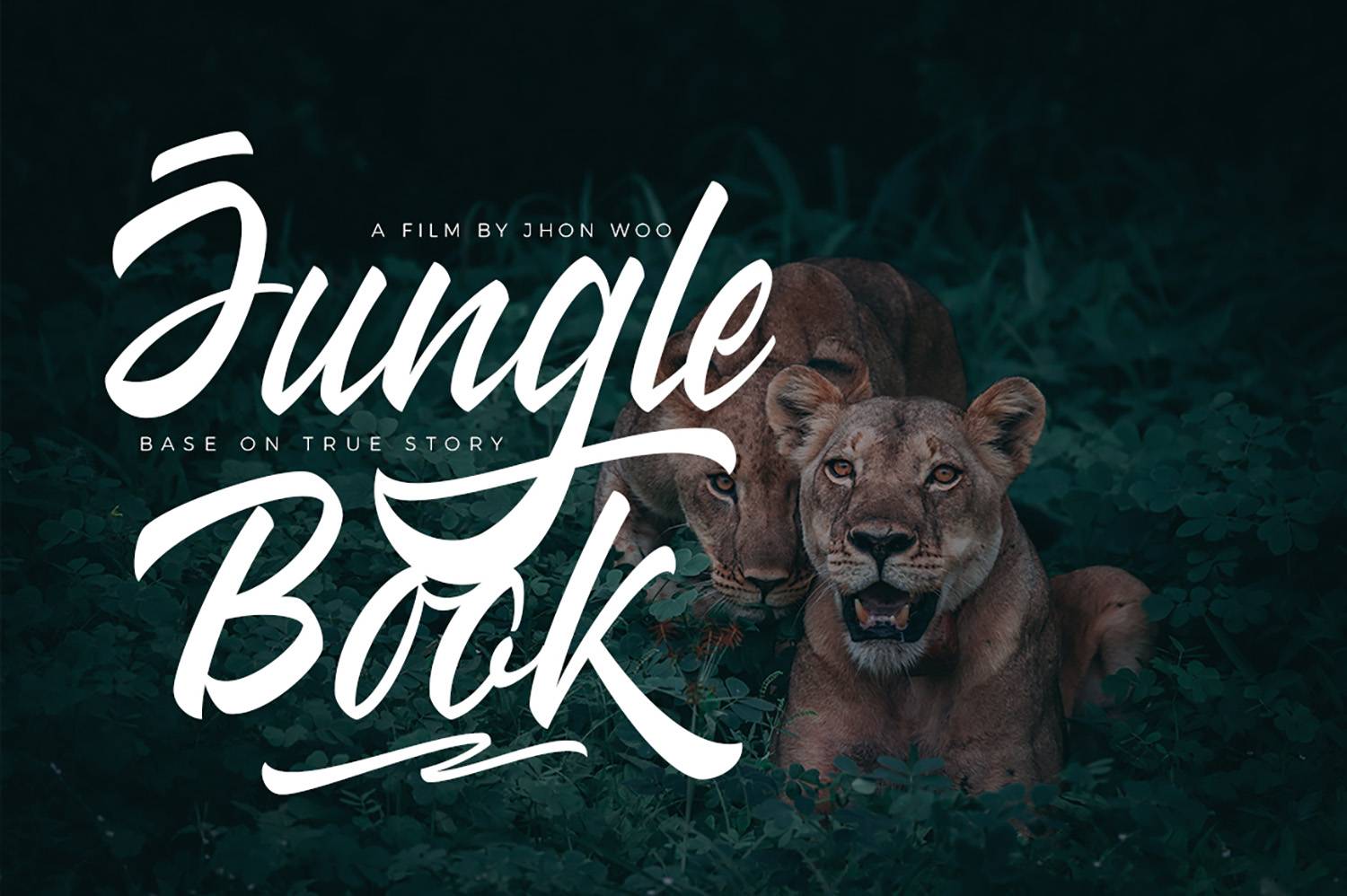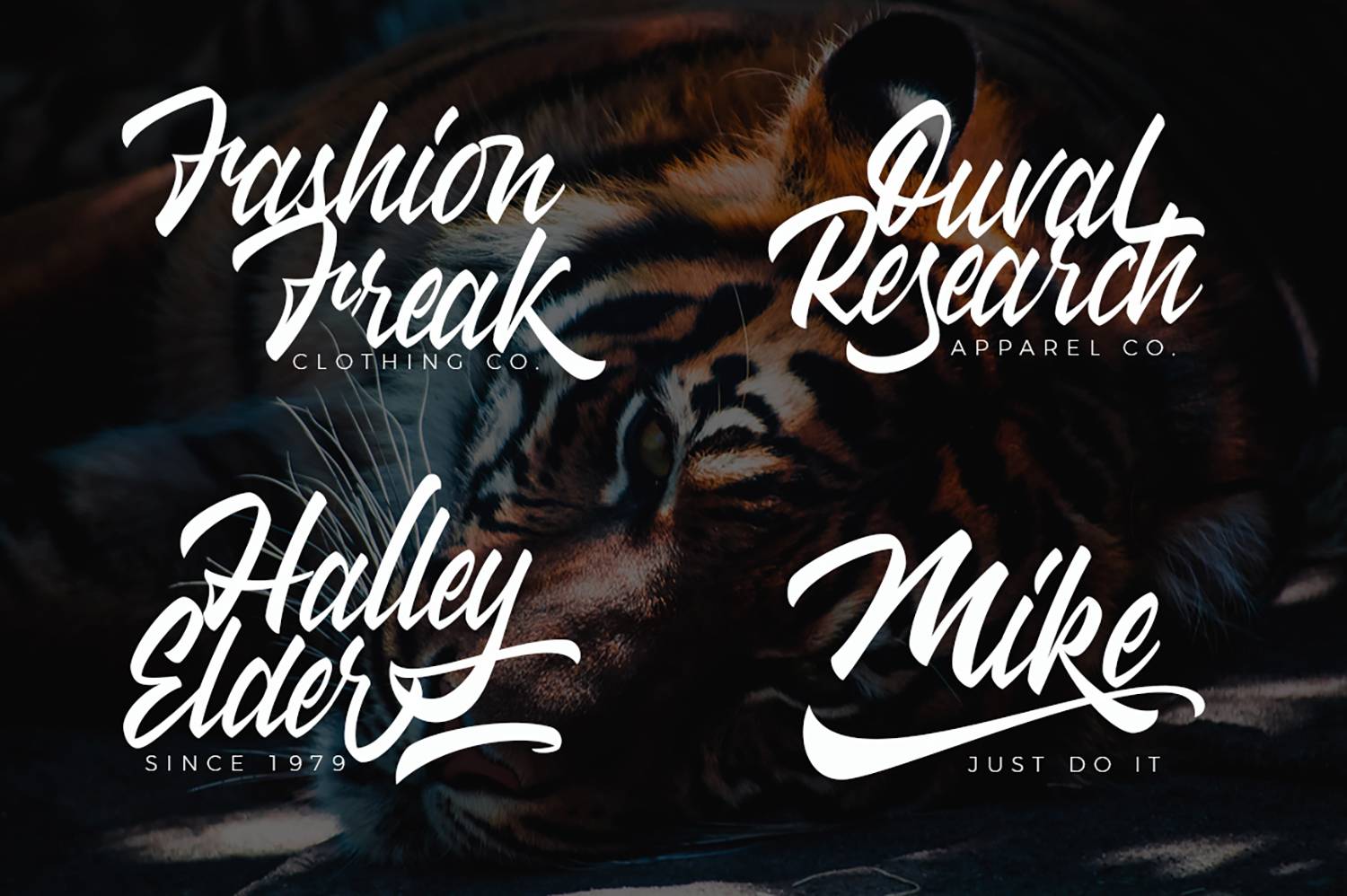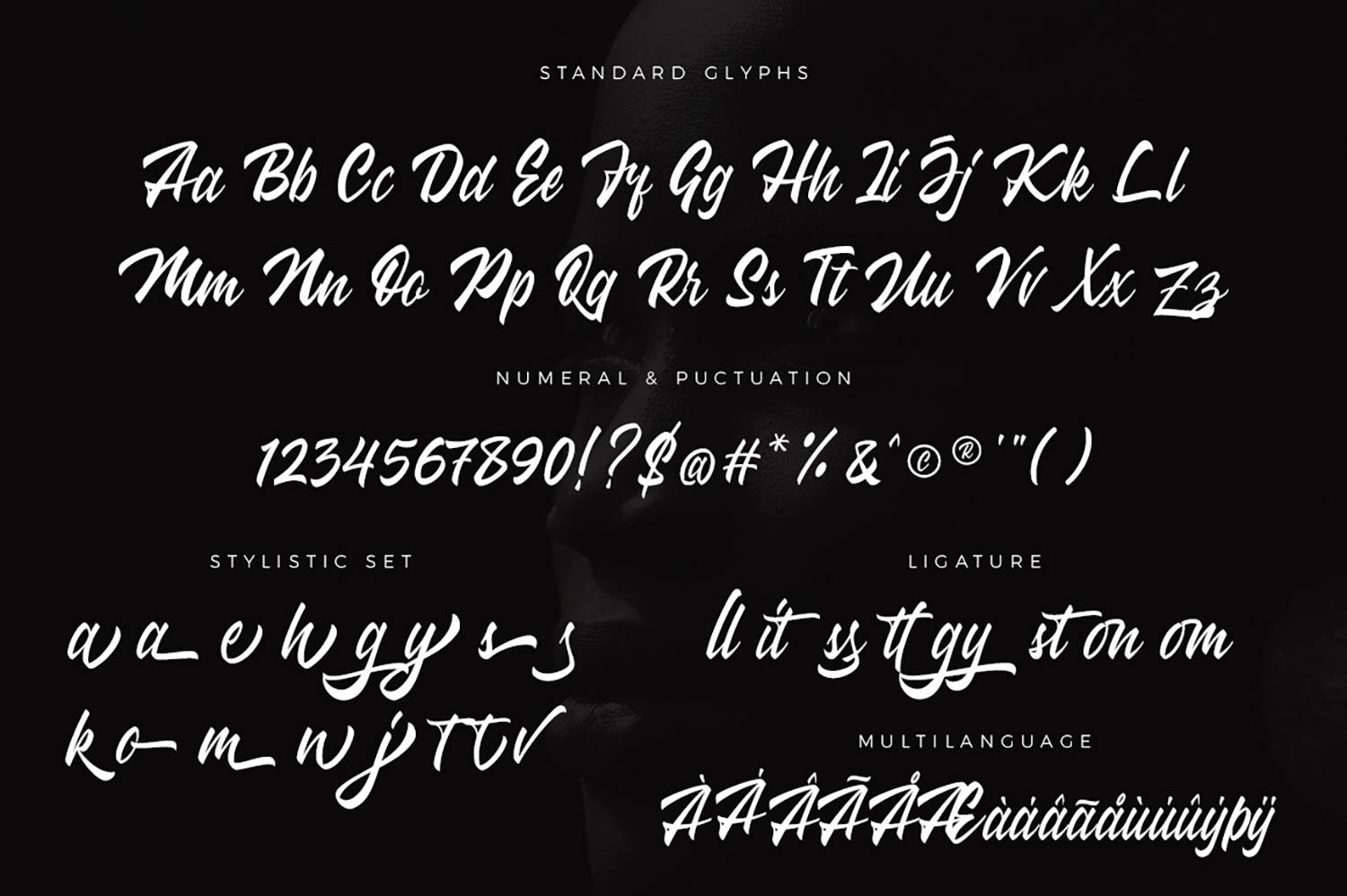
Wakanda Script Font is a bold, energetic script typeface with a smooth, flowing style that mimics natural handwriting. Its medium contrast strokes and slightly condensed letterforms create a dynamic, expressive feel that works well for branding, invitations, and headline use where a personal and stylish touch is desired. This font adds a sense of elegance and vibrancy, making it perfect for designs that want to convey creativity and sophistication.
Wakanda Script Font
About Wakanda Script Font
| Font family | Wakanda Script Font |